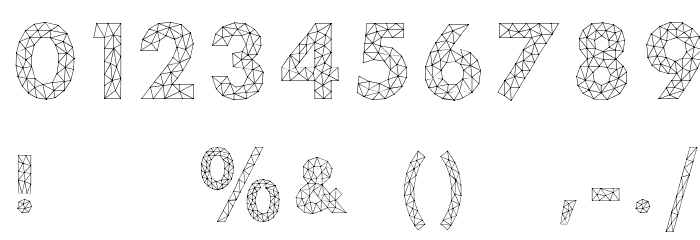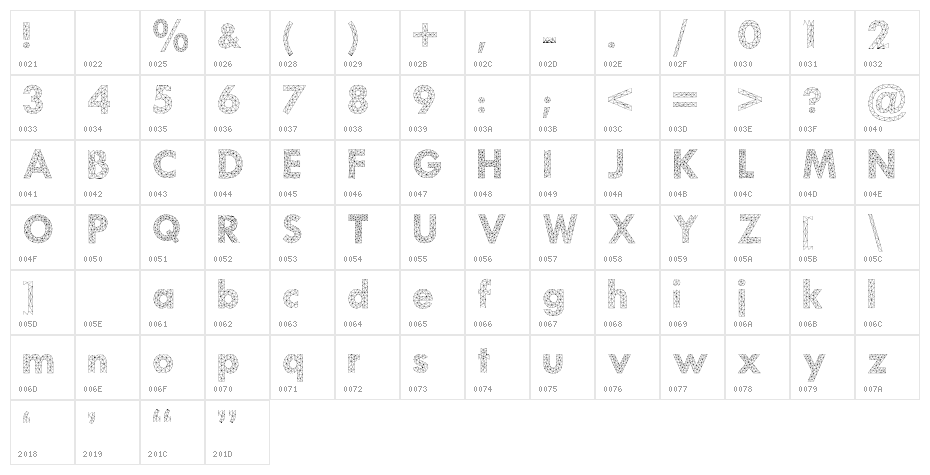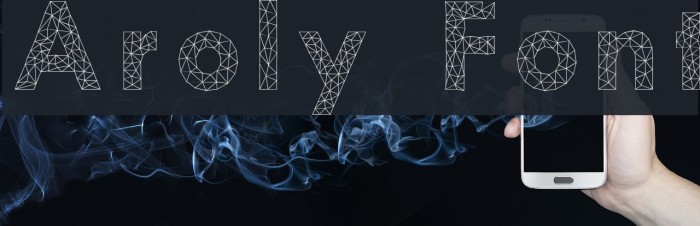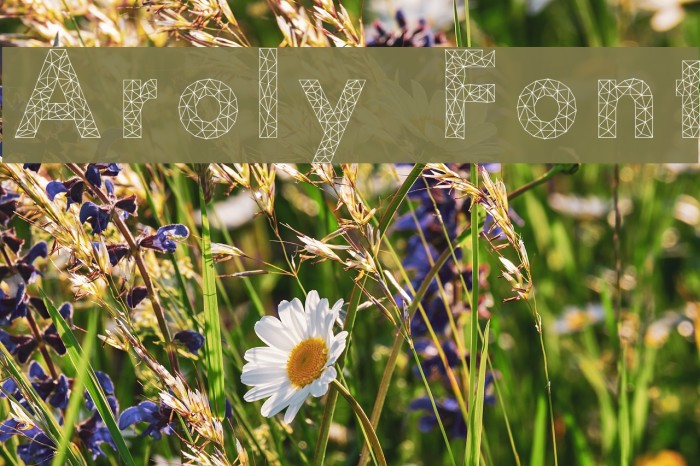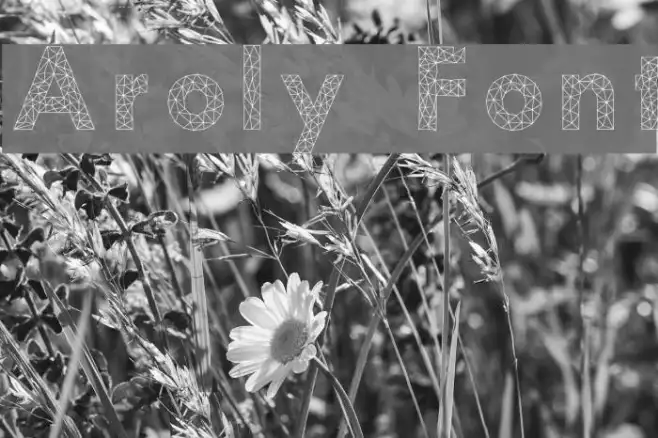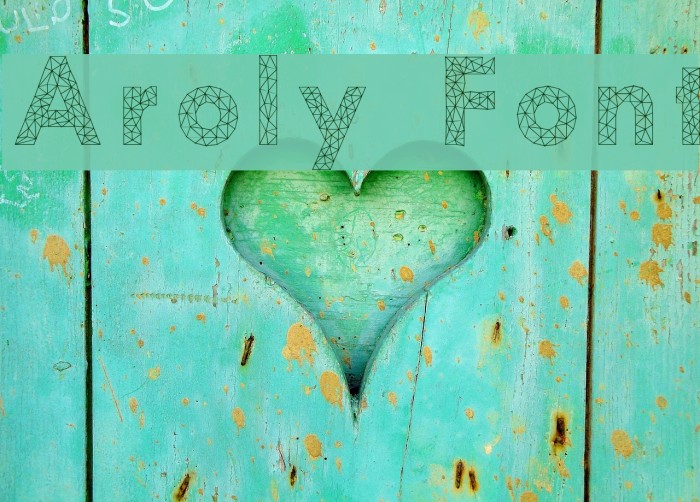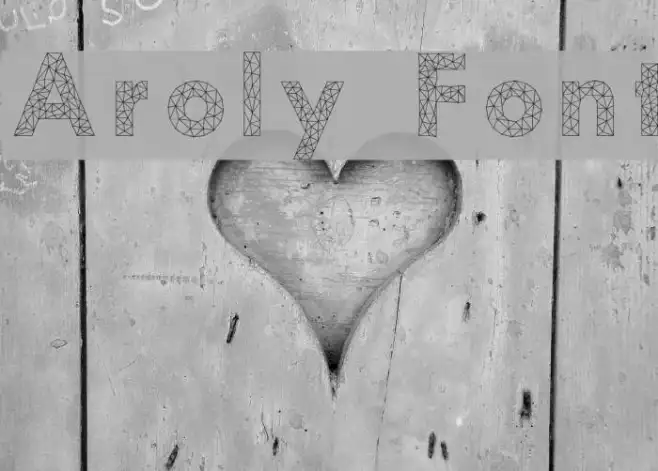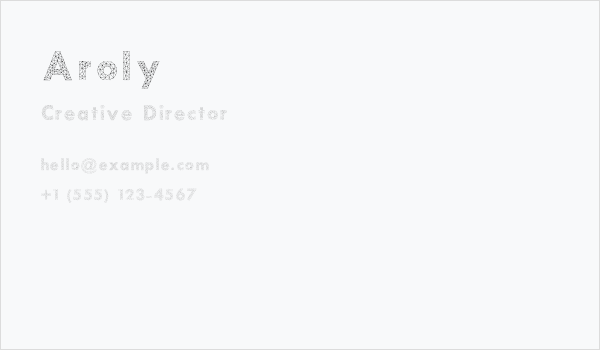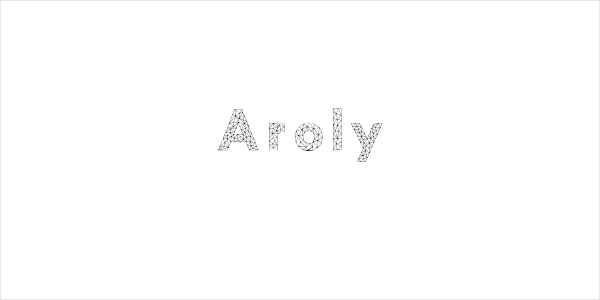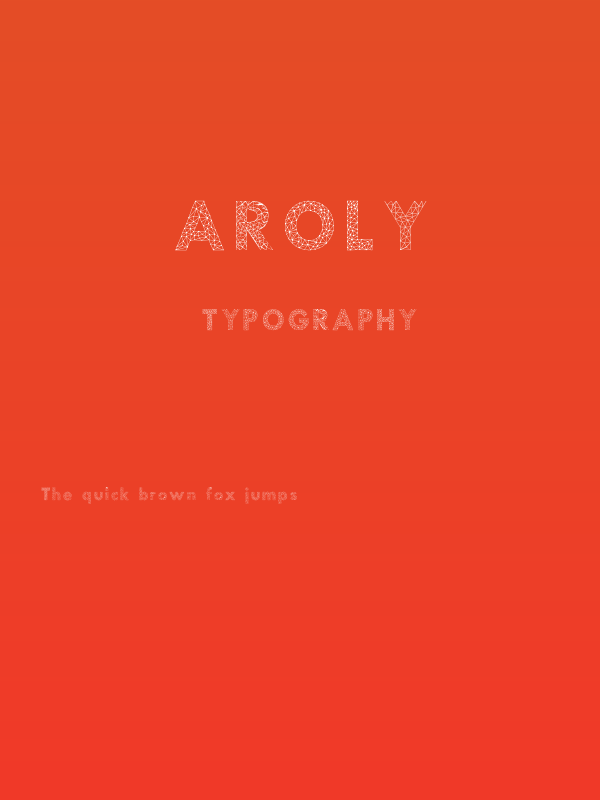
Aroly Font
Aroly Description
This font features a unique geometric design with a mosaic-like pattern filling each character. The letters are constructed with interconnected triangular shapes, creating a textured and intricate appearance. The uppercase and lowercase letters maintain a consistent style, with clean lines and a modern aesthetic. The numerals and special characters follow the same design principle, ensuring uniformity across the entire character set. This font stands out due to its decorative and artistic flair, making it suitable for creative and eye-catching designs.
| Proposed Projects | Ideal for artistic projects, branding, posters, and any design requiring a bold and creative statement. |